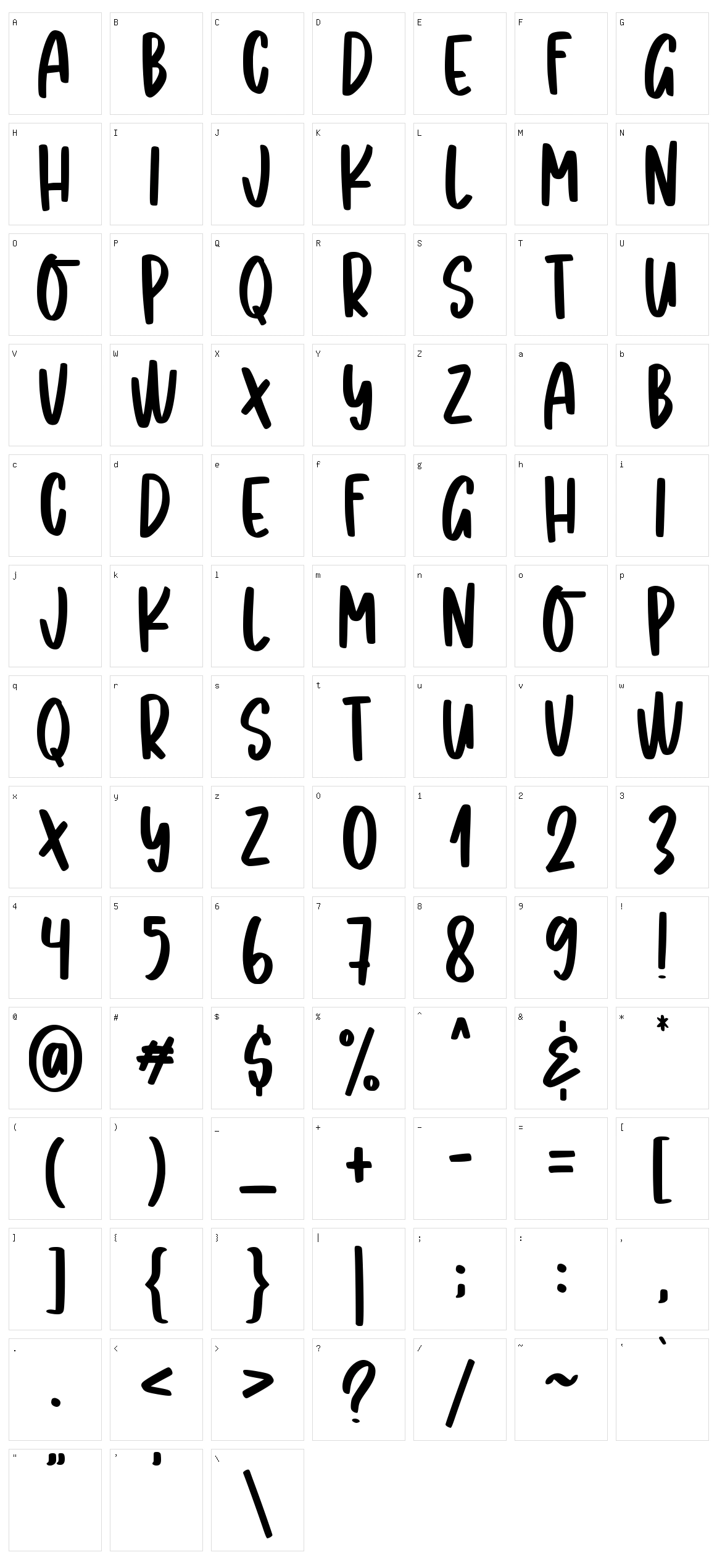
SHINING DIAMOND
- quirky font trio -
SHINING DIAMOND is natural handwritten font. come with 3 styles, solid, neon, and dot. it is very eye catching.
I designed it special for neon project. It is great for packaging, branding, quotes, cards, banner, book, cutting, silhouette, social media content and anything of your craft project.
The combination of solid and dot are perfect.